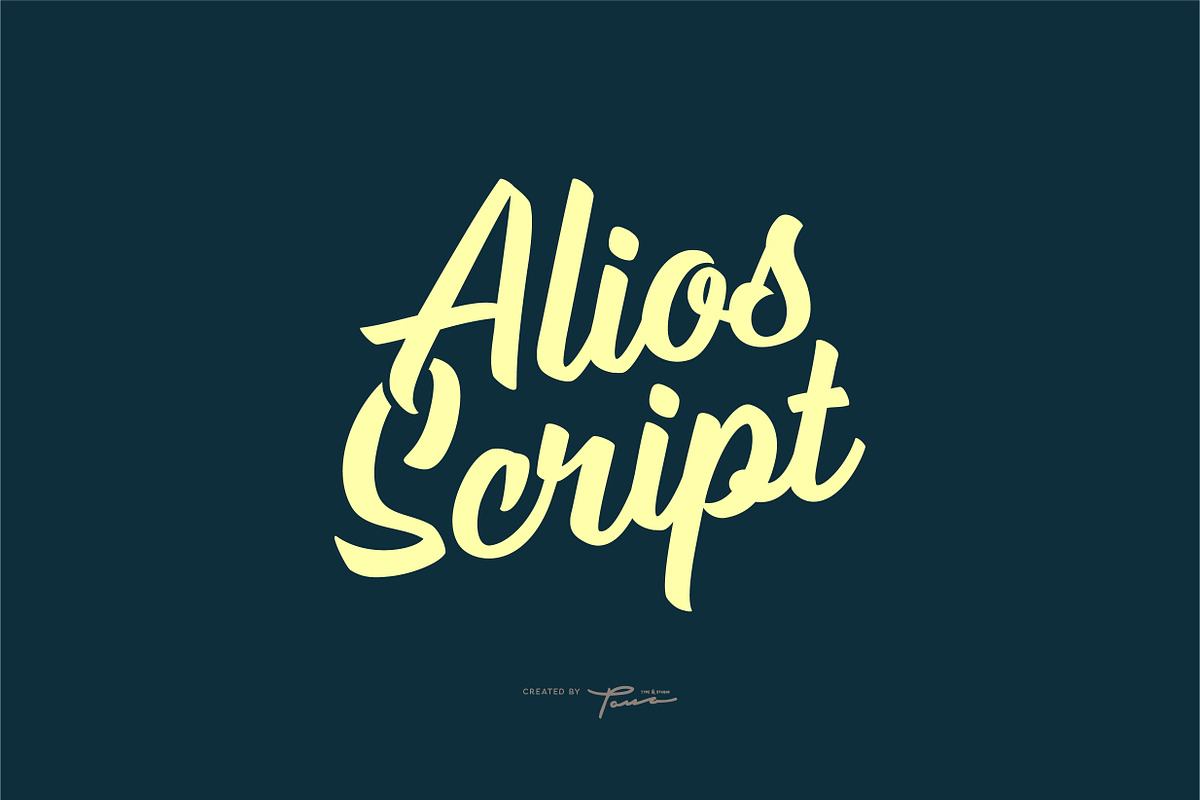
Sweet Bundle Pack Free Download
Sweet Bundle Pack Free Download is a delightful collection of charming fonts designed to bring a touch of whimsy, elegance, and joy to your creative projects. With a mix of handwritten scripts, playful displays, and cute sans serifs, this bundle is perfect for greeting cards, logos, social media content, kids' designs, invitations, and handmade product branding.
Each font in the pack is carefully crafted to stand out on its own or pair beautifully with the others—giving you endless options for mixing and matching styles. Whether you're going for sweet and simple or layered and expressive, this bundle has you covered.